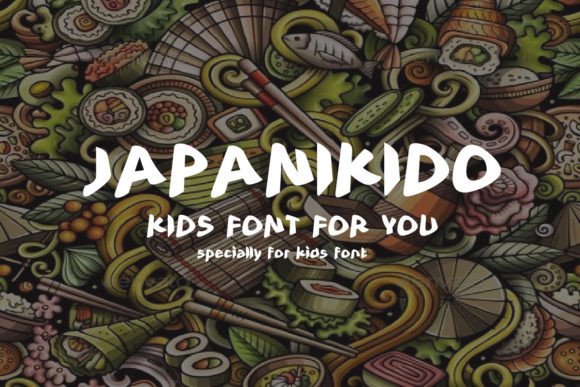
Meet Japanikido Font - a playful and whimsical display font, crafted to bring life to your creative endeavors! Dive into a world of captivating designs, fueled by the boundless energy of Japanikido. Its playful strokes and dynamic characters dance together effortlessly, creating a visual symphony that demands attention.
Unleash your imagination and embrace the allure of Japanikido. Let your words take on a life of their own, as they pirouette across your designs with irresistible charm. Perfect for those seeking a font that's both distinctive and versatile, Japanikido is your passport to a realm of endless creative possibilities.
With Japanikido, the ordinary becomes extraordinary. Transform headings into vibrant beacons of creativity, headlines into captivating works of art, and logos into unforgettable symbols of individuality. Let your designs radiate with the infectious energy of Japanikido, leaving a lasting impression on your audience.
Join the ranks of discerning designers who recognize the transformative power of Japanikido. This font isn't just a tool; it's an expression of your unique style, a testament to your discerning taste. Elevate your designs to new heights of visual appeal with Japanikido - the font that ignites creativity and captures hearts.